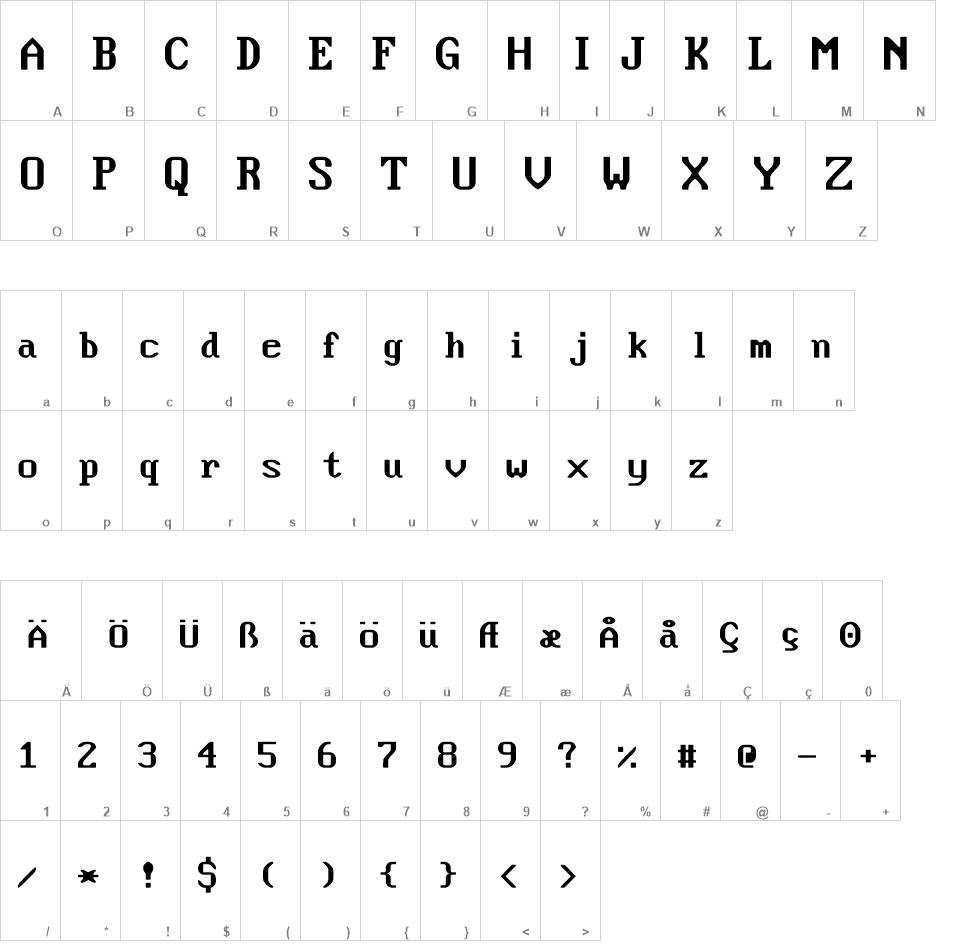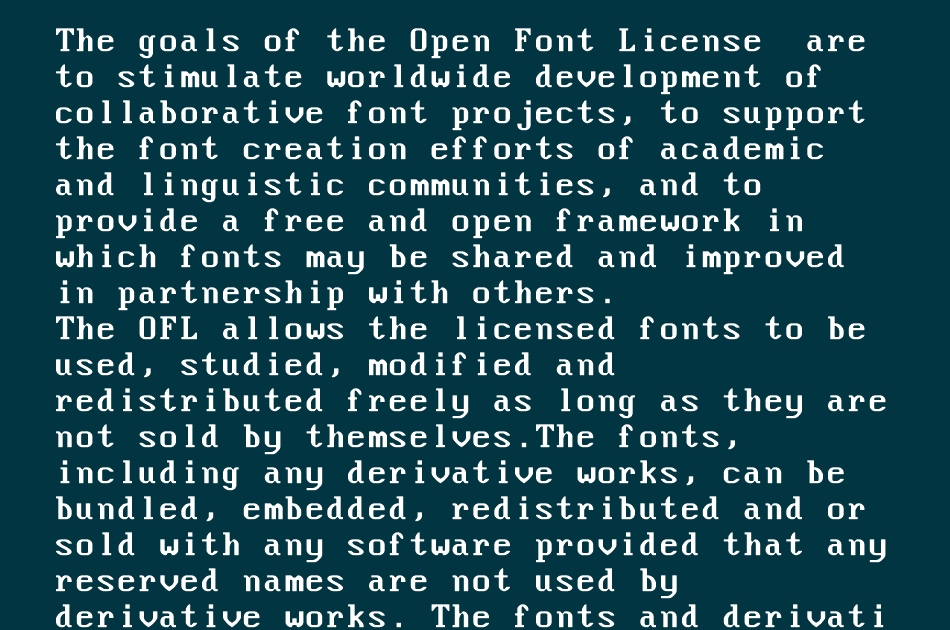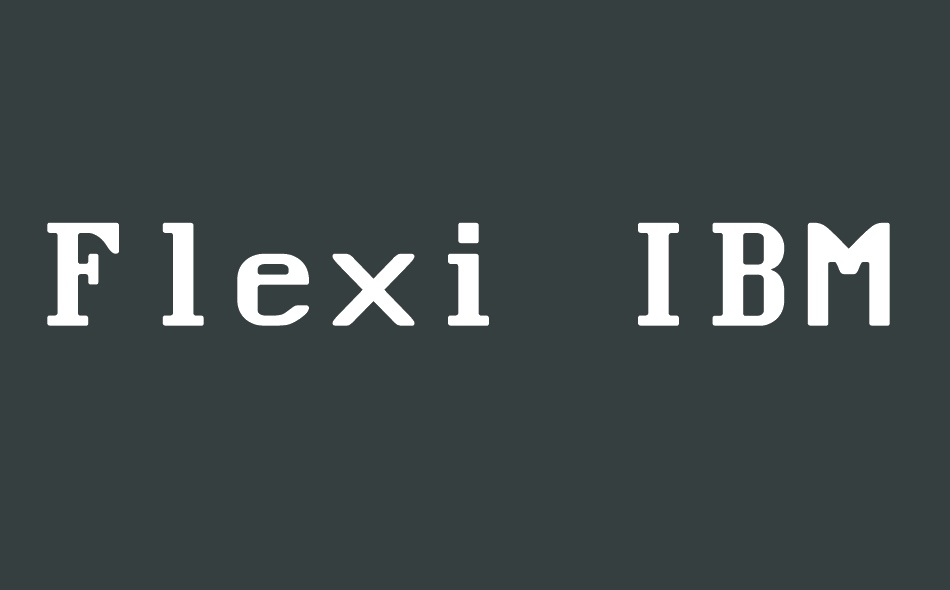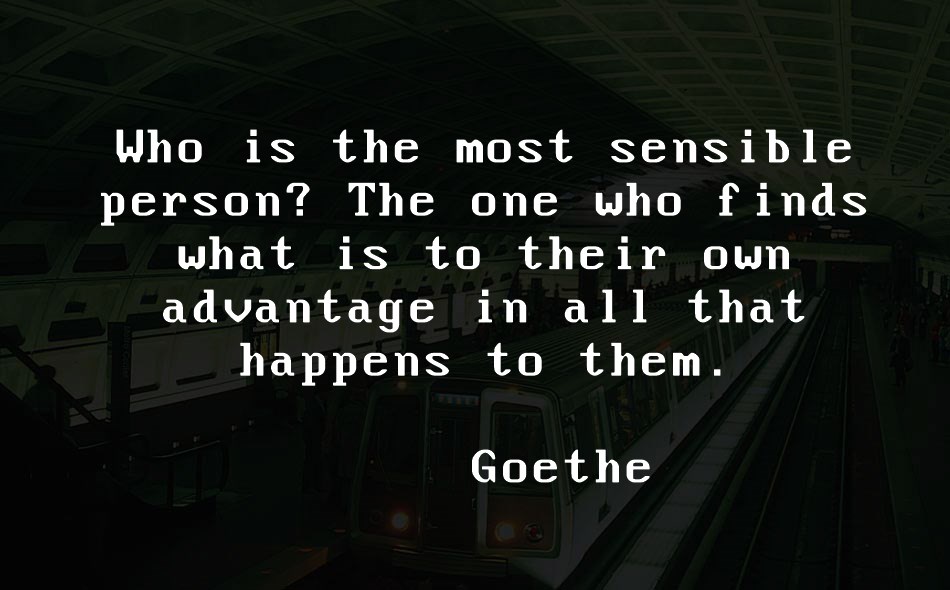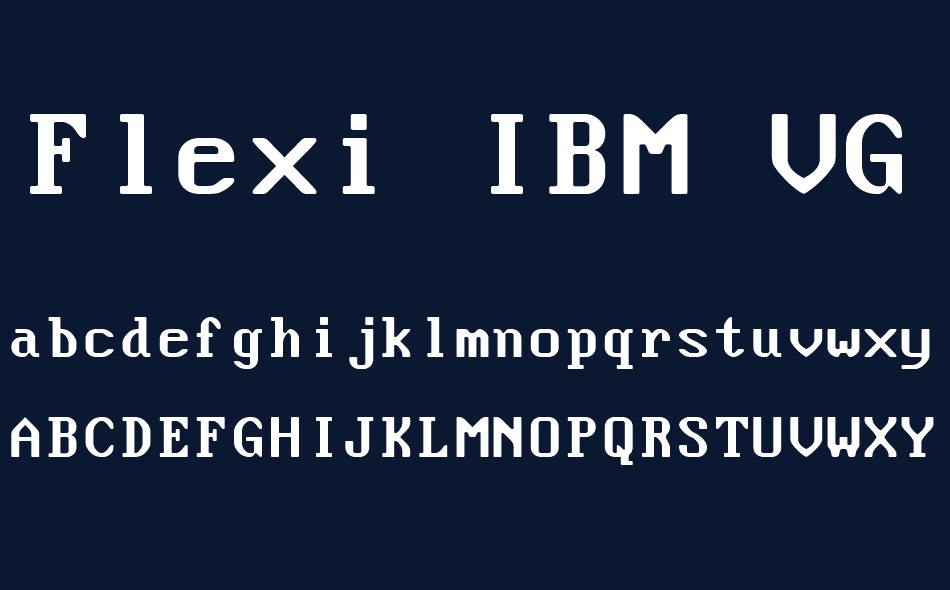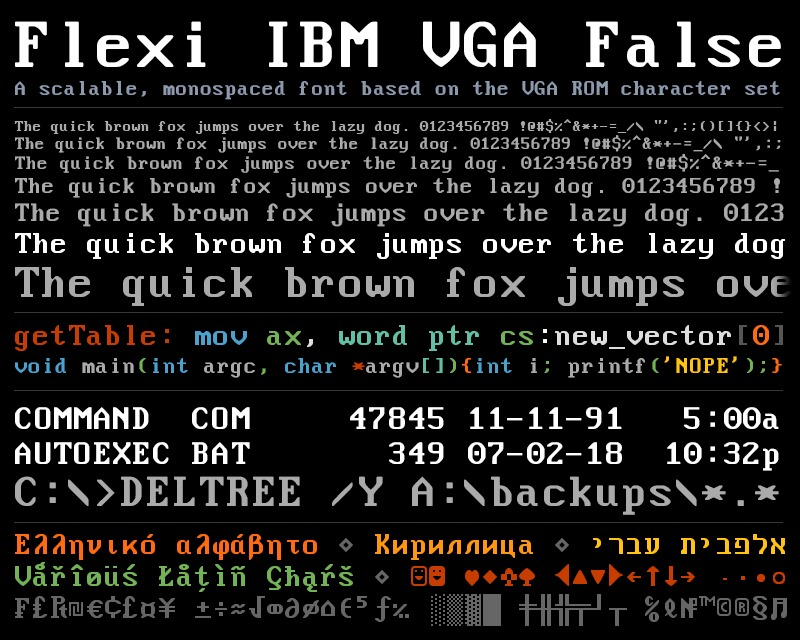
Flexi IBM VGA False font
TrueType fonts based on the VGA character set (as seen in DOS, hardware text modes, ANSI/ASCII art, and so on).
Manually converted from pixel-grid bitmaps to scalable outlines, meant to preserve the original appearance perceptually.
The 'False' versions are NOT aspect-corrected; see "Flexi IBM VGA True" for that.
Included variants:
* "Flexi IBM VGA False": an extended character set, including Greek, Hebrew, Cyrillic and many Latin scripts, etc.
* "Flexi IBM VGA False (437)": an exact match of the 8-bit "US-Latin" DOS encoding; contains only the characters from the original IBM PC code page 437.